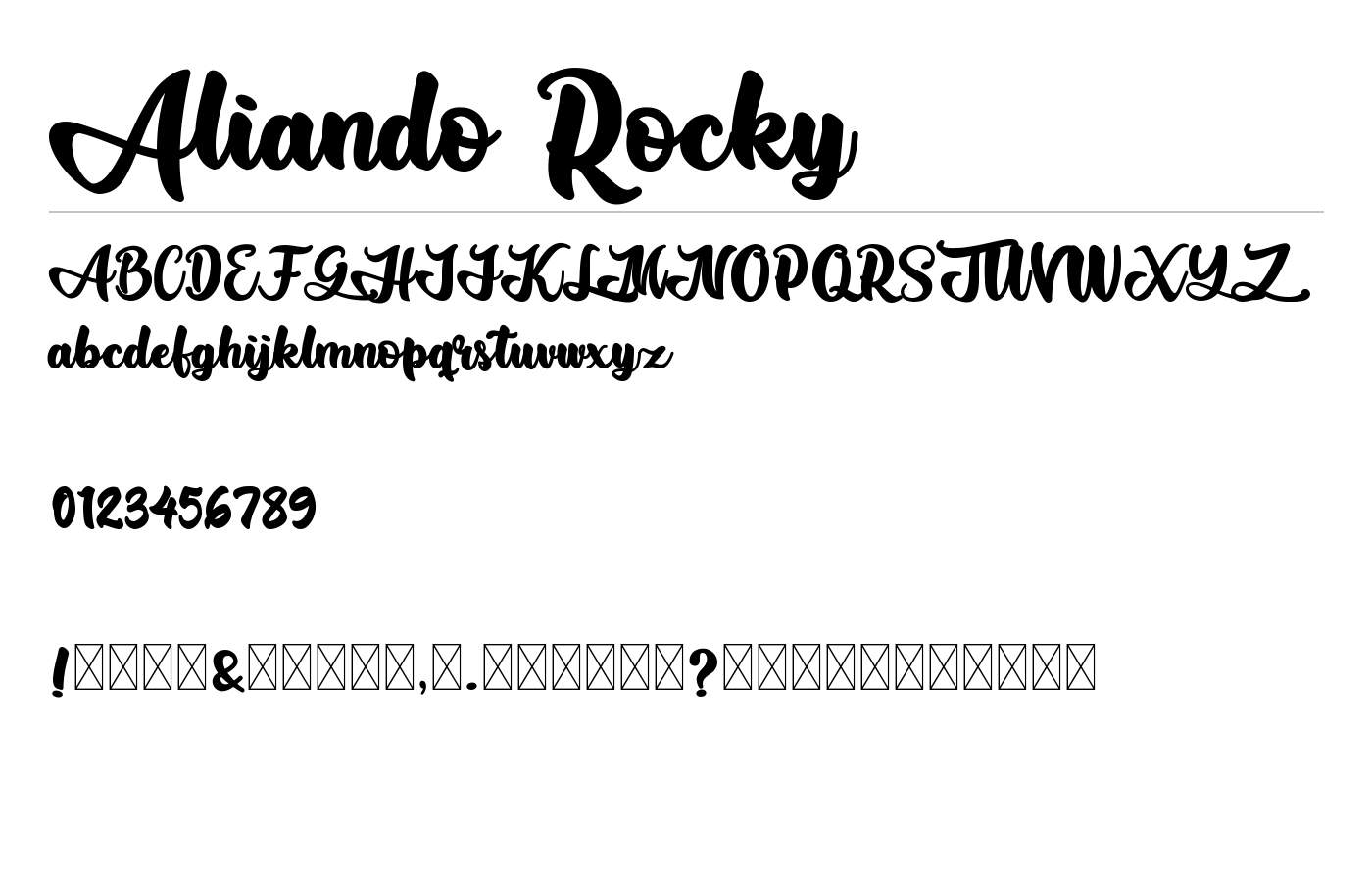
Aliando Rocky is a bold, flowing script font with smooth, rounded strokes and a hand-lettered feel. It combines playful charm with clear readability, making it ideal for branding, packaging, and creative headlines that want to convey warmth and personality. This font works well where a friendly, approachable yet stylish touch is needed.
Aliando Rocky Font
About Aliando Rocky Font
| Font family | Aliando Rocky Font |